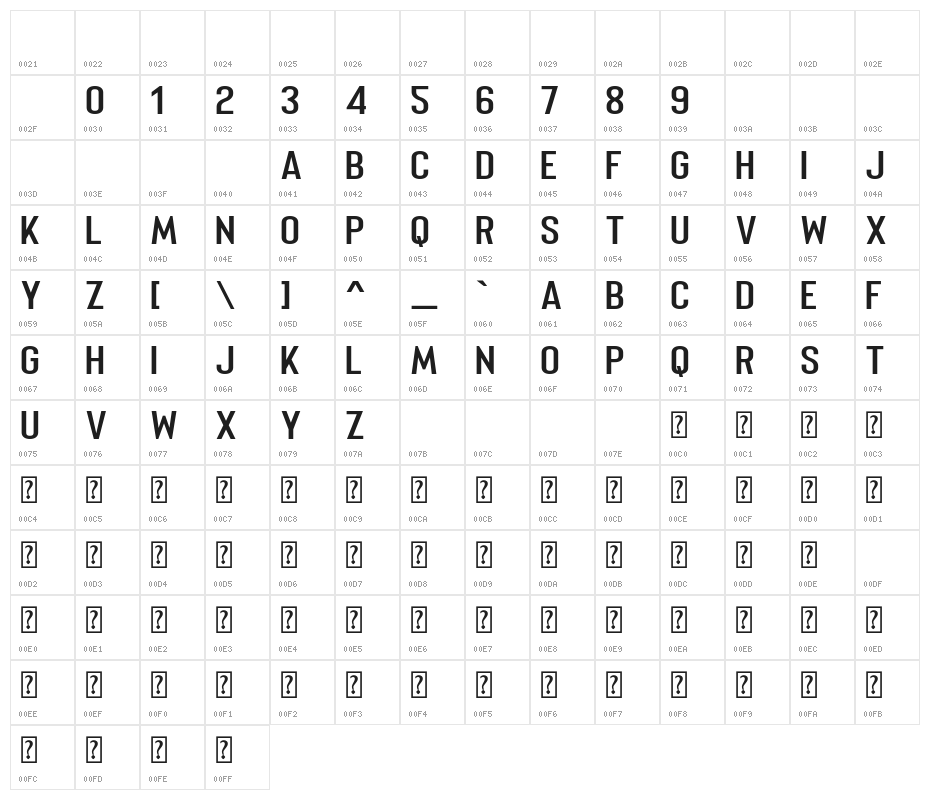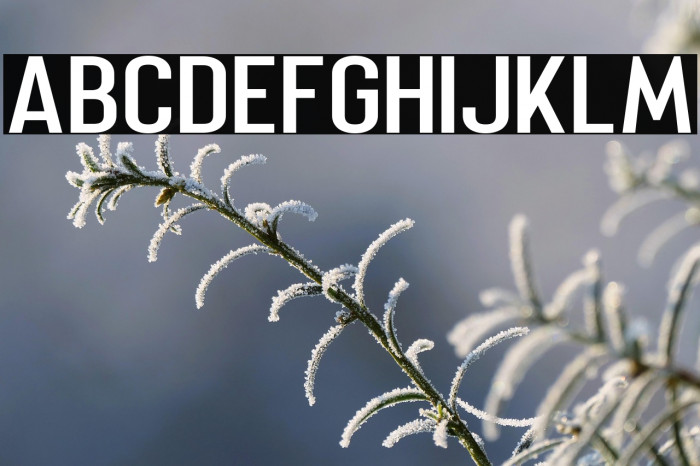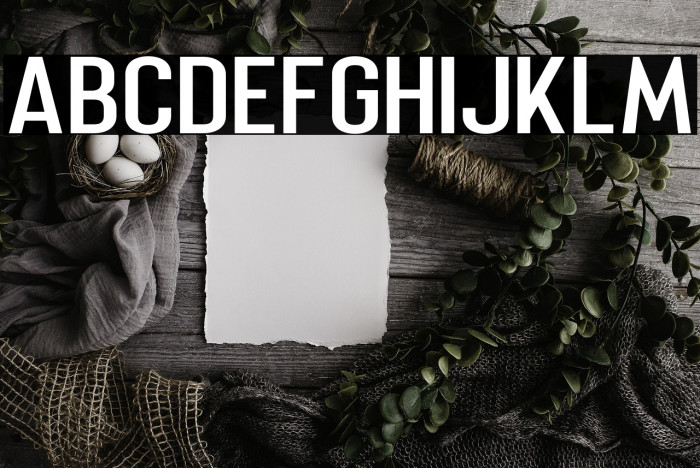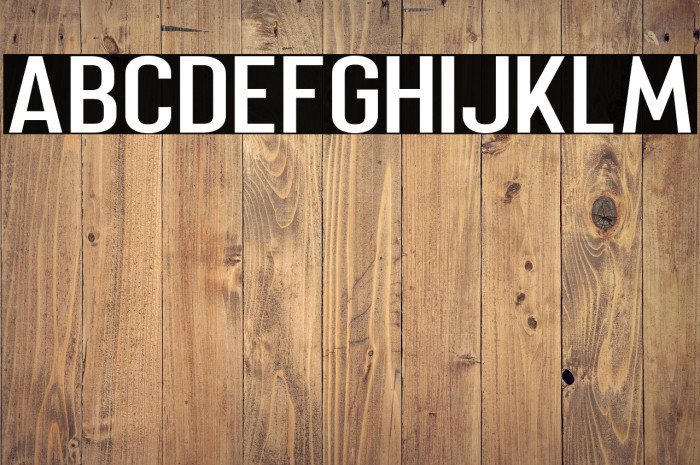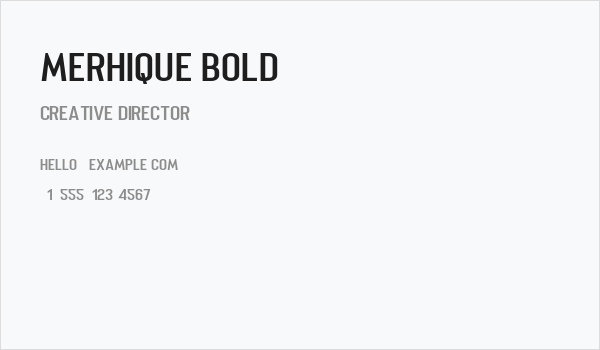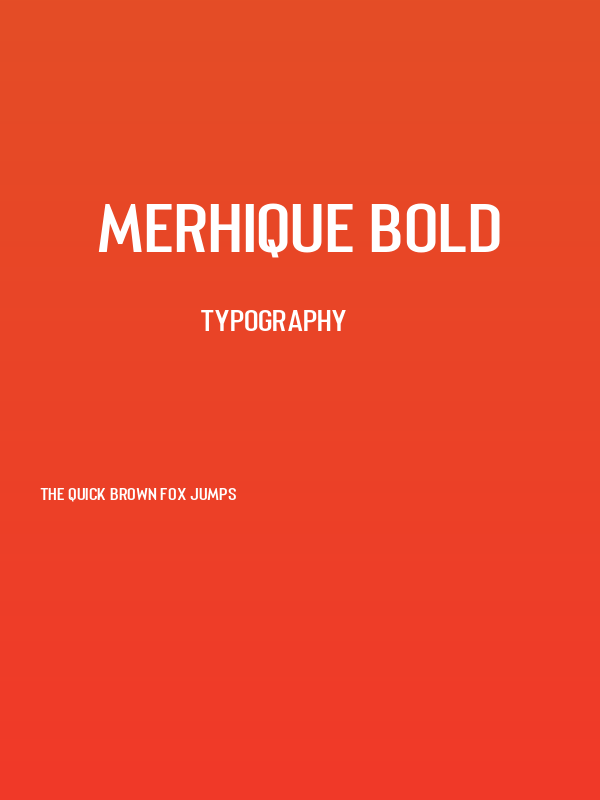
Merhique Bold Font
Merhique Bold Description
This font showcases a bold and assertive style, characterized by its strong geometric shapes and clean lines. The uppercase letters are uniform in height, creating a cohesive and structured appearance. The numerals are equally bold, maintaining the font's overall robust aesthetic. The design is modern and minimalistic, making it suitable for a variety of applications where clarity and impact are essential. The characters are evenly spaced, ensuring readability and balance across different text sizes.